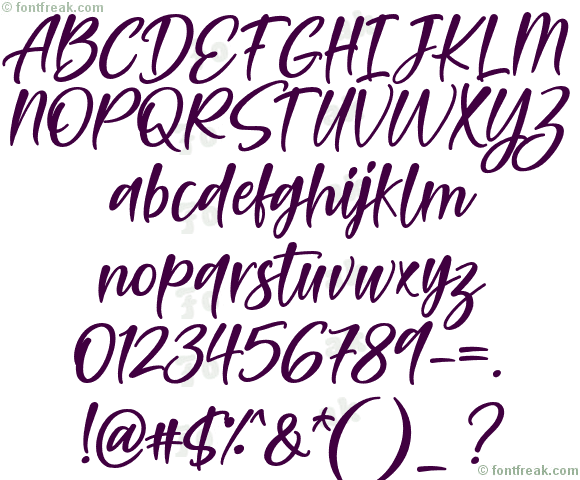
Feltarigo
About Feltarigo
Feltarigo, designed by Situjuh Nazara, is a stunning display font that beautifully marries elegance with a modern touch. This typeface is characterized as a script font, showcasing flowing curves and a handwritten aesthetic that adds a personal feel to any design. The strokes exhibit a medium weight with a balanced contrast, allowing for readability while maintaining artistic flair. The spacing is thoughtfully adjusted, ensuring that each character connects smoothly, creating a cohesive look ideal for various applications.
Feltarigo's unique style makes it an excellent choice for wedding invitations, where its romantic and elegant vibe can enhance the overall aesthetic. Additionally, it's perfect for movie posters, adding a dramatic flair that captures attention. Restaurant menus can also benefit from this font, as it conveys a sense of sophistication that appeals to diners. Content creators will find its charm ideal for social media graphics or branding projects, where a personal touch can make a significant impact.
What sets the Feltarigo font apart is its ability to blend artistic expression with functional design. Its flowing lines and stylish appearance make it not just a typeface, but a tool for storytelling through typography. For anyone interested in enhancing their projects, the Feltarigo font free download provides an opportunity to access a high-quality design resource that stands out in a crowded digital landscape.